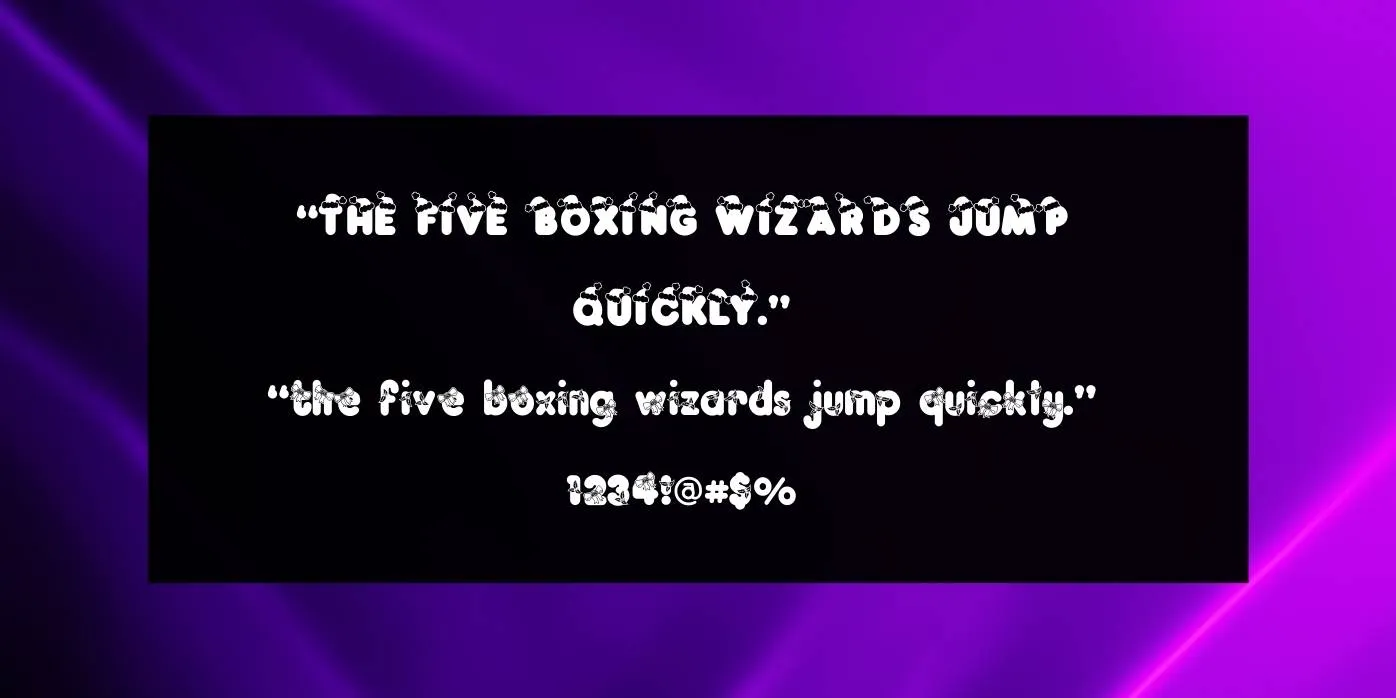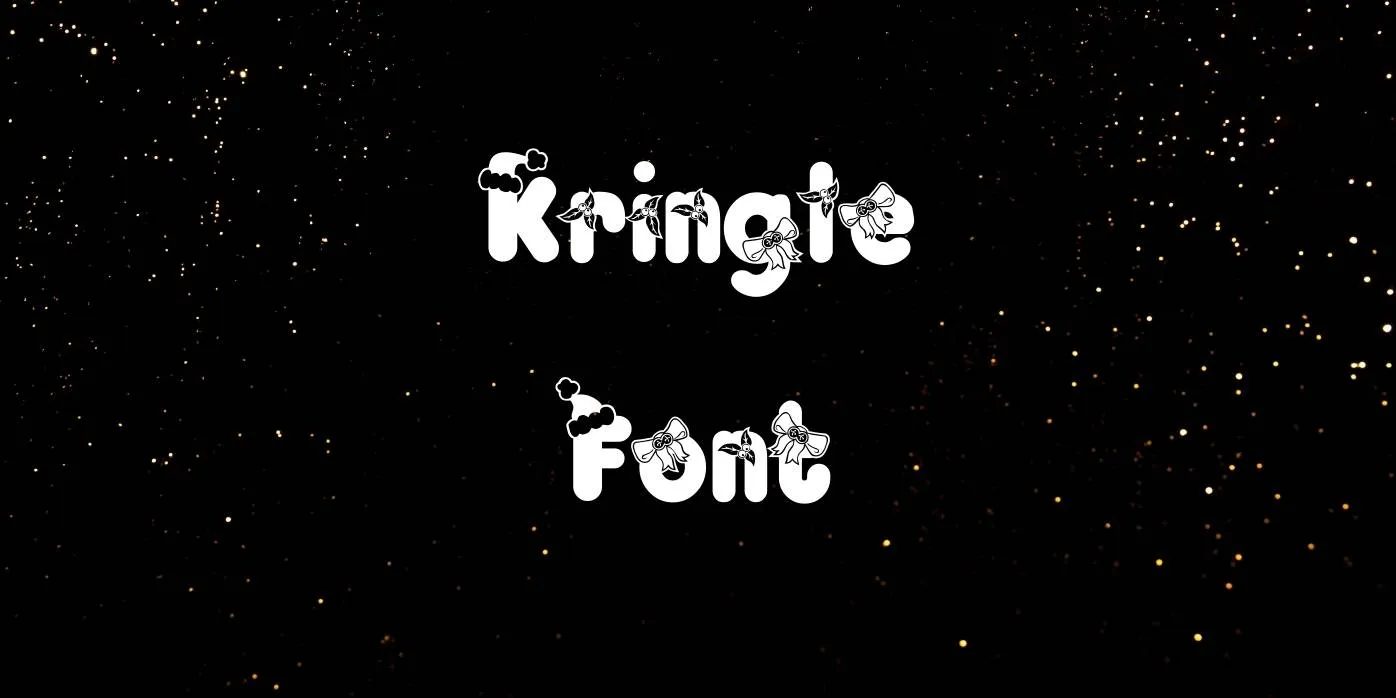
Kringle Font
Here we discuss detailed information about the Kringle font. It was designed by Sealoung Saiful Anwar. The table version of this font is Altsys Fontogrpher 3.5 11/07/1995. You can make so many different projects by using this font.
The weight of the font is Bold and the width of the font is medium(normal). It can be paired with other fonts like morrita font to give a more attractive look to your projects. Usage It is a very interesting font and you can make so many amazing projects by using it. This font has many features it as characters, symbols, numbers, punctuation, capital letters, small letters, and special characters.
It is specifically available to make projects related to Christmas. You can use this font to make Christmas events or holidays special. It can be used for themed decorations for Christmas. You can make Christmas cards, Greeting cards, and Banners for Christmas and other holiday event.
It is also a good choice to make logos of different brands. Flyers that are made using this font give you a very attractive look because of their style. You can also use it to make labels and wrap paper for gifts and other purposes. Is a very good font for print and digital media.